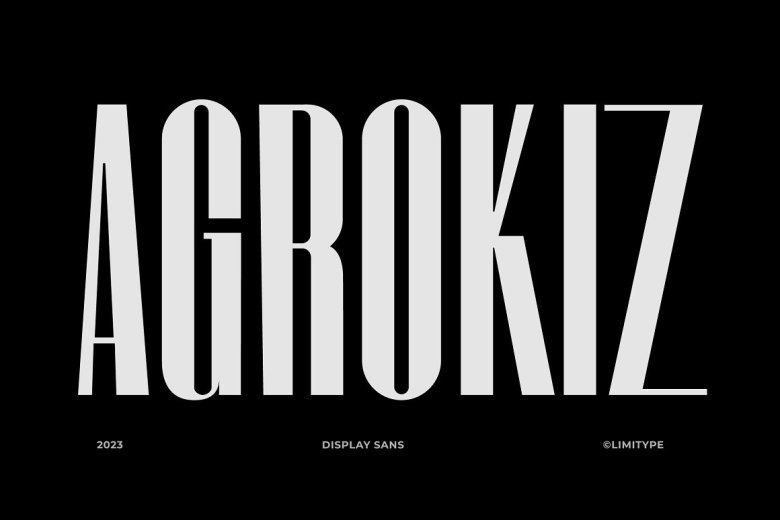
Agrokiz Font
Agrokiz font was designed to address design and display needs that require large text, such as magazine headlines or banners. With its modern aesthetic and extensive character set – lowercase letters, symbols, numbers and multilingual support – Agrokiz provides designers and media with a versatile solution.
Agrokiz Display Font